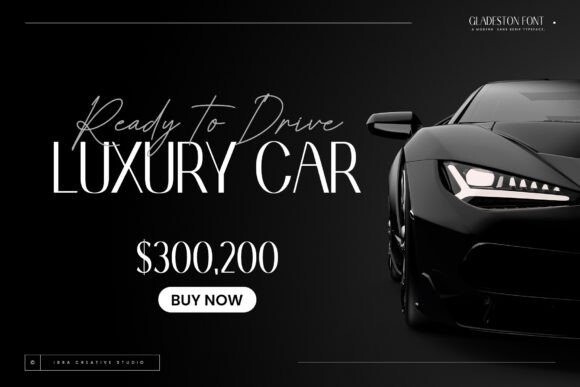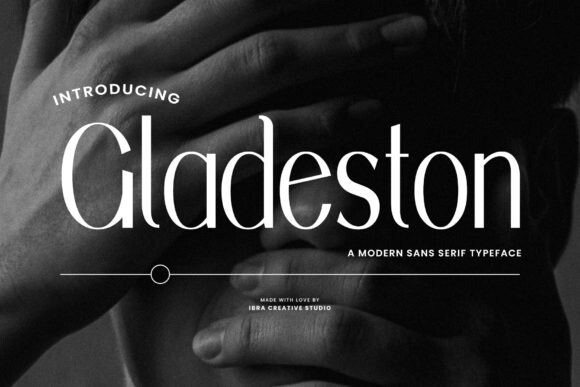
Gladeston Font
Gladeston Font, a contemporary sans-serif typeface, seamlessly combines sophistication with modernity, making it an ideal choice for a wide range of design applications. With clean lines, balanced proportions, and a minimalist aesthetic, Gladeston exudes a sense of professionalism and clarity. Its versatile design lends itself well to both display and body text, ensuring readability across various platforms. Gladeston is perfect for branding projects, logo, wedding designs, social media posts, advertisements, product packaging, product designs, label, photography, watermark, invitation, stationery, game, fashion and any projects.